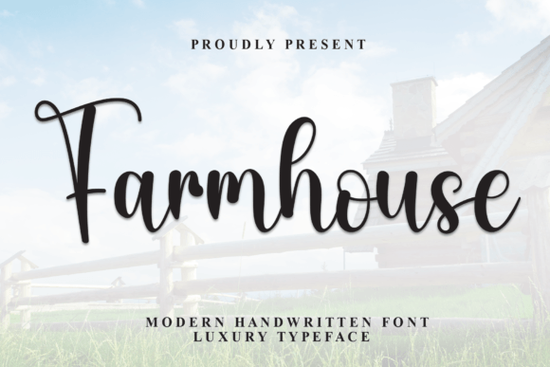
If you're looking for a handwritten font that feels warm, approachable, and full of personality, the Farmhouse Font is worth a closer look. Designed with a natural, slightly uneven stroke that mimics real handwriting, it brings an organic charm to everything from greeting cards to product labels. Whether you’re a small business owner creating custom packaging or a crafter personalizing home décor, this font adds a human touch without feeling overly stylized.
What makes Farmhouse Font stand out among handwritten options?
Unlike rigid, overly polished script fonts, Farmhouse Font leans into its imperfections subtle variations in letter height, gentle curves, and soft connections between characters give it authenticity. It’s not trying to be calligraphy; it’s trying to feel like something you’d write yourself on a chalkboard or a recipe card. That relatability is why it works so well for farmhouse-style branding, cozy café menus, wedding stationery, or even printable planner pages.
Its legibility is another strong point. Many handwritten fonts sacrifice readability for flair, but Farmhouse strikes a balance. Even at smaller sizes, words remain clear making it practical for both digital mockups and printed materials.
Who should consider using this font?
This font shines for creators who value warmth and simplicity:
- Print-on-demand sellers designing mugs, tote bags, or wall art with rustic or cottagecore themes.
- Small businesses crafting logos, labels, or social media graphics that need a friendly, handmade vibe.
- Crafters and DIY enthusiasts making personalized gifts, vinyl decals, or scrapbook layouts.
- Graphic designers looking for a secondary typeface to pair with clean sans-serifs for contrast.
If your project calls for sincerity over slickness, Farmhouse Font delivers.
How does it compare to other handwritten fonts?
Handwritten fonts come in many flavors from bouncy and playful to elegant and flowing. Farmhouse sits comfortably in the “everyday casual” category. For example, if you’ve used the Adorable Notebook Font, you’ll notice it has more bounce and whimsy, while Farmhouse feels grounded and steady.
Similarly, the Summertime Sadness Font leans into dramatic swashes and emotional expression, whereas Farmhouse keeps things understated. If you prefer a minimalist signature look, the Signature Font might suit formal projects better but for relaxed, everyday charm, Farmhouse holds its own.
And while brush-style options like the Brush Handmade Font offer texture and bold strokes, Farmhouse provides a smoother, cleaner line that’s easier to read in body text or short phrases.
Even compared to versatile choices like the Handwriting Font, Farmhouse stands out with its consistent rhythm and subtle irregularities that avoid looking robotic.
Tips for using Farmhouse Font effectively
To get the most out of this typeface, keep these practical ideas in mind:
- Pair it wisely. Combine Farmhouse with a simple sans-serif (like Montserrat or Lato) for headings or body copy. The contrast highlights its hand-drawn quality without overwhelming the design.
- Avoid all-caps. Like most handwritten fonts, it’s designed for lowercase or sentence case. Uppercase letters can look stiff and lose their natural flow.
- Use generous spacing. Slightly increased letter-spacing (tracking) helps maintain readability, especially in longer phrases.
- Limit use in tiny sizes. While legible down to about 12pt in print, it’s best reserved for headlines, quotes, labels, or short blocks of text.
Also, remember that context matters. Farmhouse Font fits beautifully in rustic, vintage, cottage, or minimalist aesthetics but may feel out of place in tech, corporate, or ultra-modern designs.
If your next project needs a font that feels like a handwritten note from a friend warm, genuine, and unpretentious Farmhouse Font could be the perfect match. It’s available through Creative Fabrica, where you can preview it in action and check licensing details for commercial use.
When used thoughtfully, Farmhouse Font adds quiet charm without shouting for attention and sometimes, that’s exactly what your design needs.